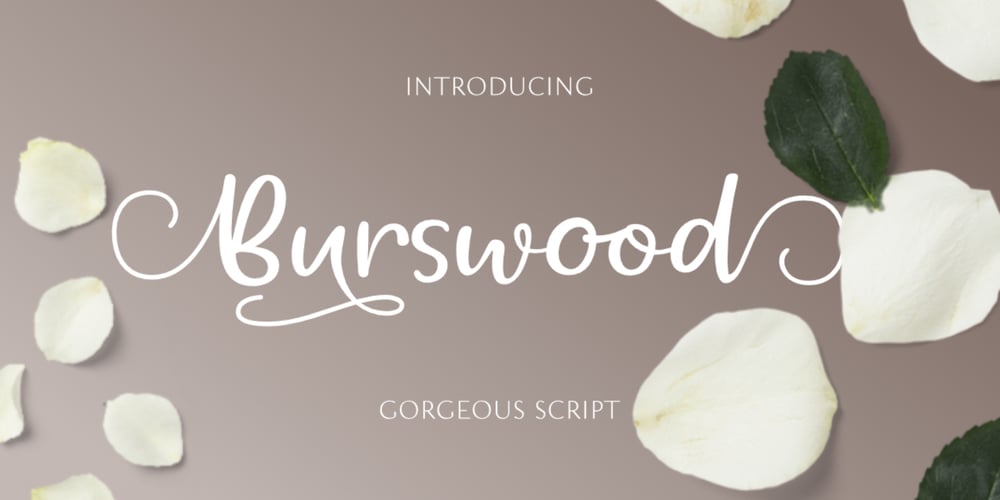
Burswood Font Family was designed by Aldy Sidik and published by Epiclinez. Burswood contains 1 styles and family package options. Burswood is a delicate and elegant handwritten font. Its distinct and well rounded letters make this font a masterpiece. Fall in love with its incredibly versatile style and use it to create spectacular designs!